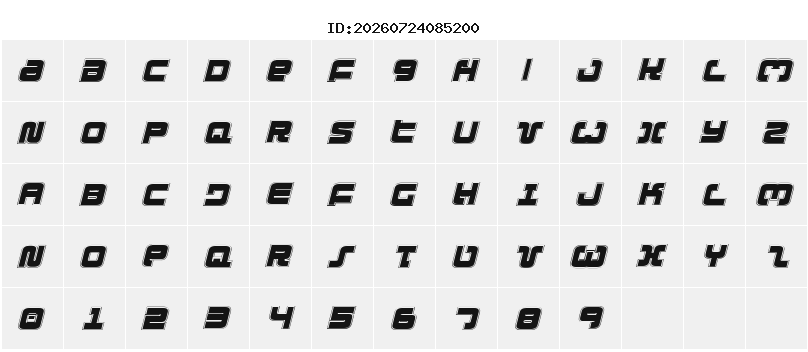
• Font Name: Exedore College Italic
• Full Font Name: Exedore College Italic
About Exedore College Italic.ttf
Exedore College Italic.ttf is a modern, elegant sans-serif font designed for ultimate readability and visual harmony. Perfect for branding, headlines, web design, and print materials.